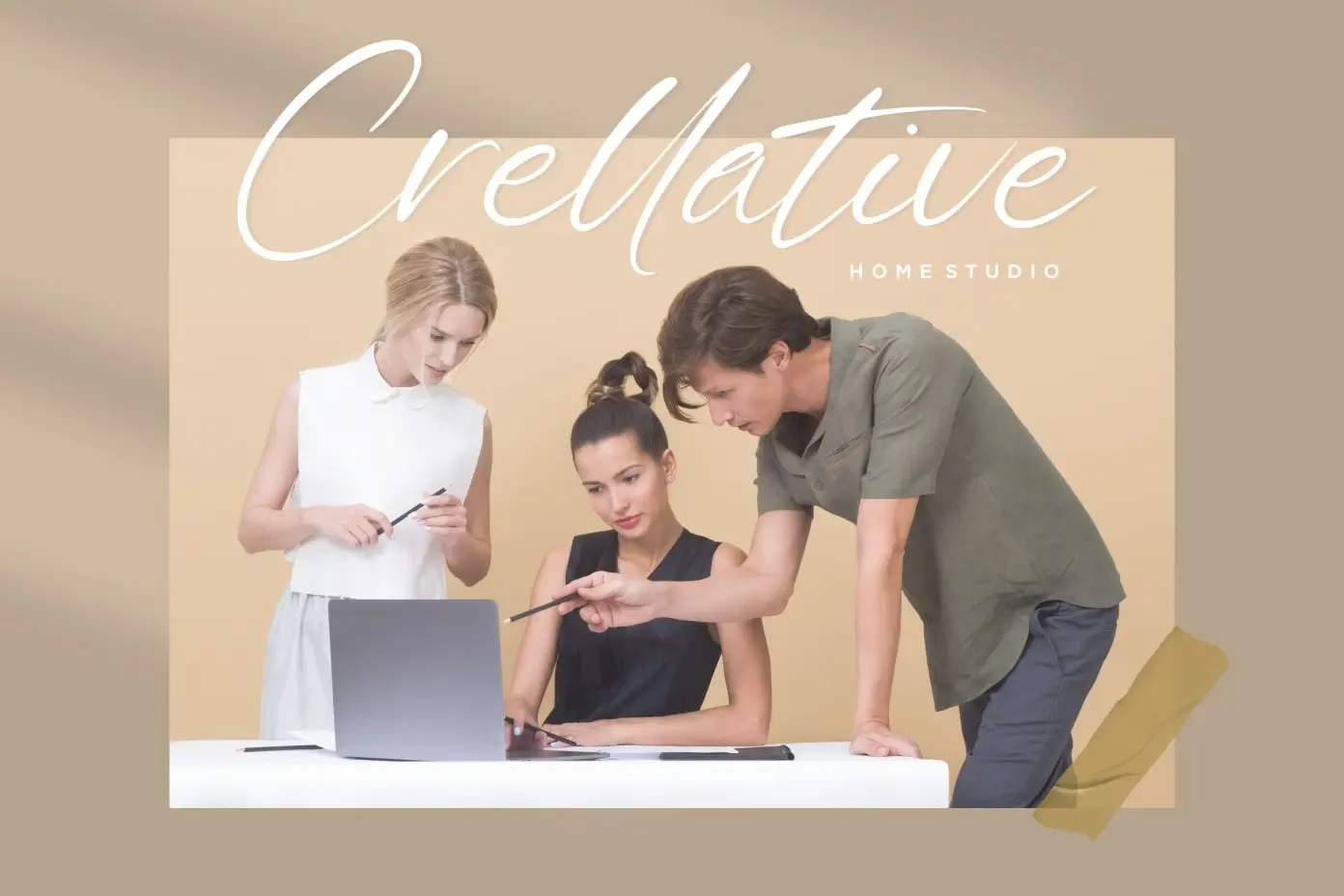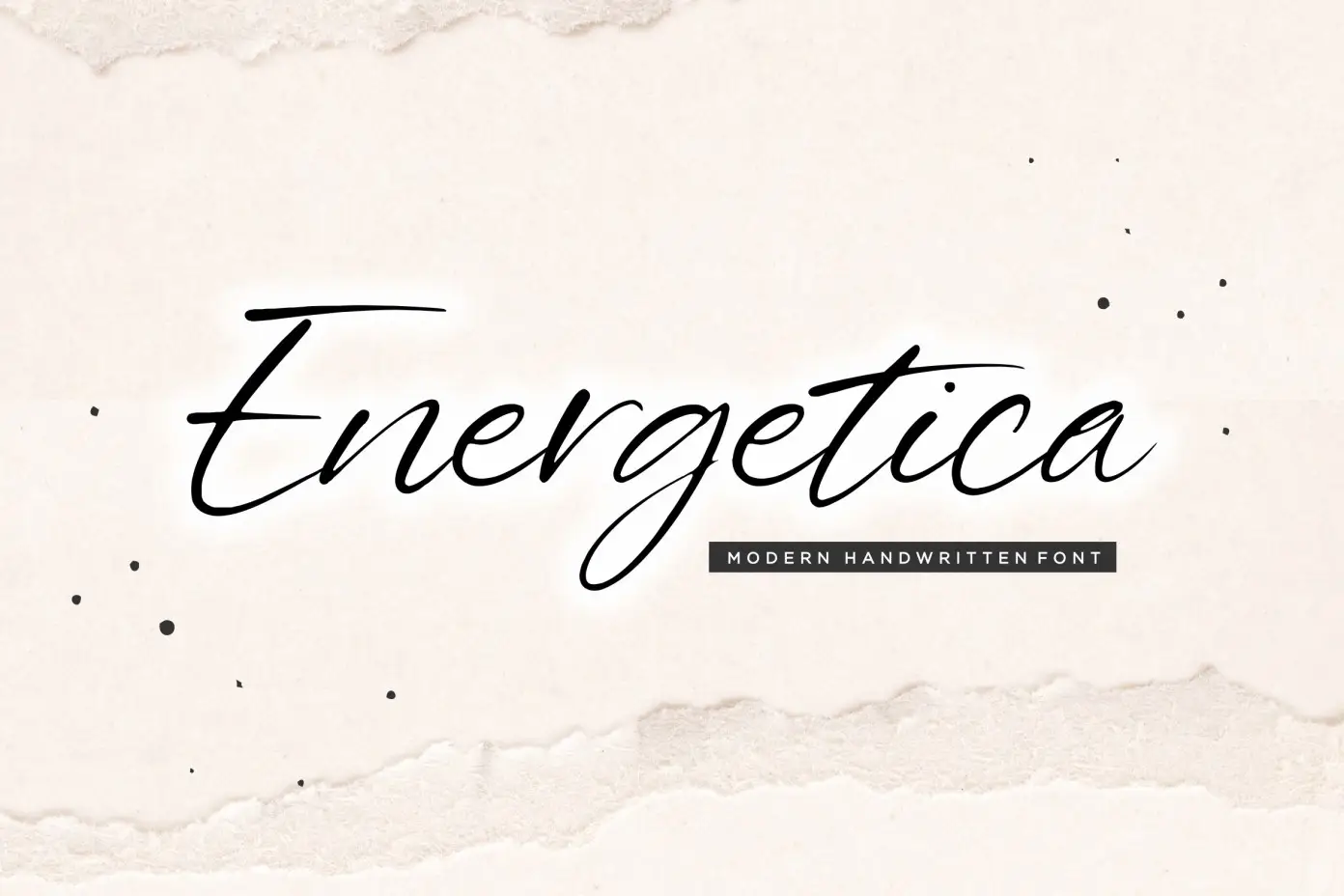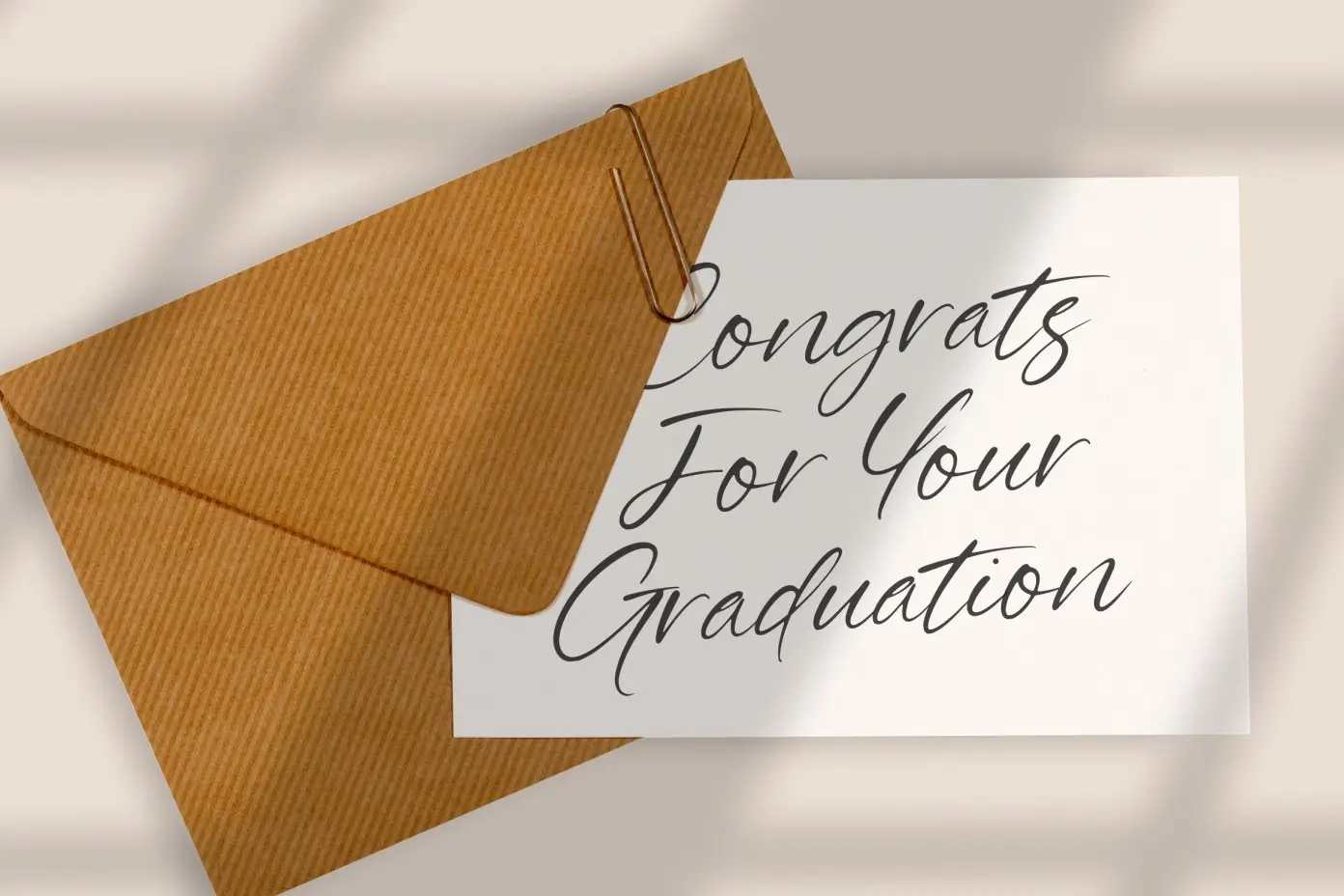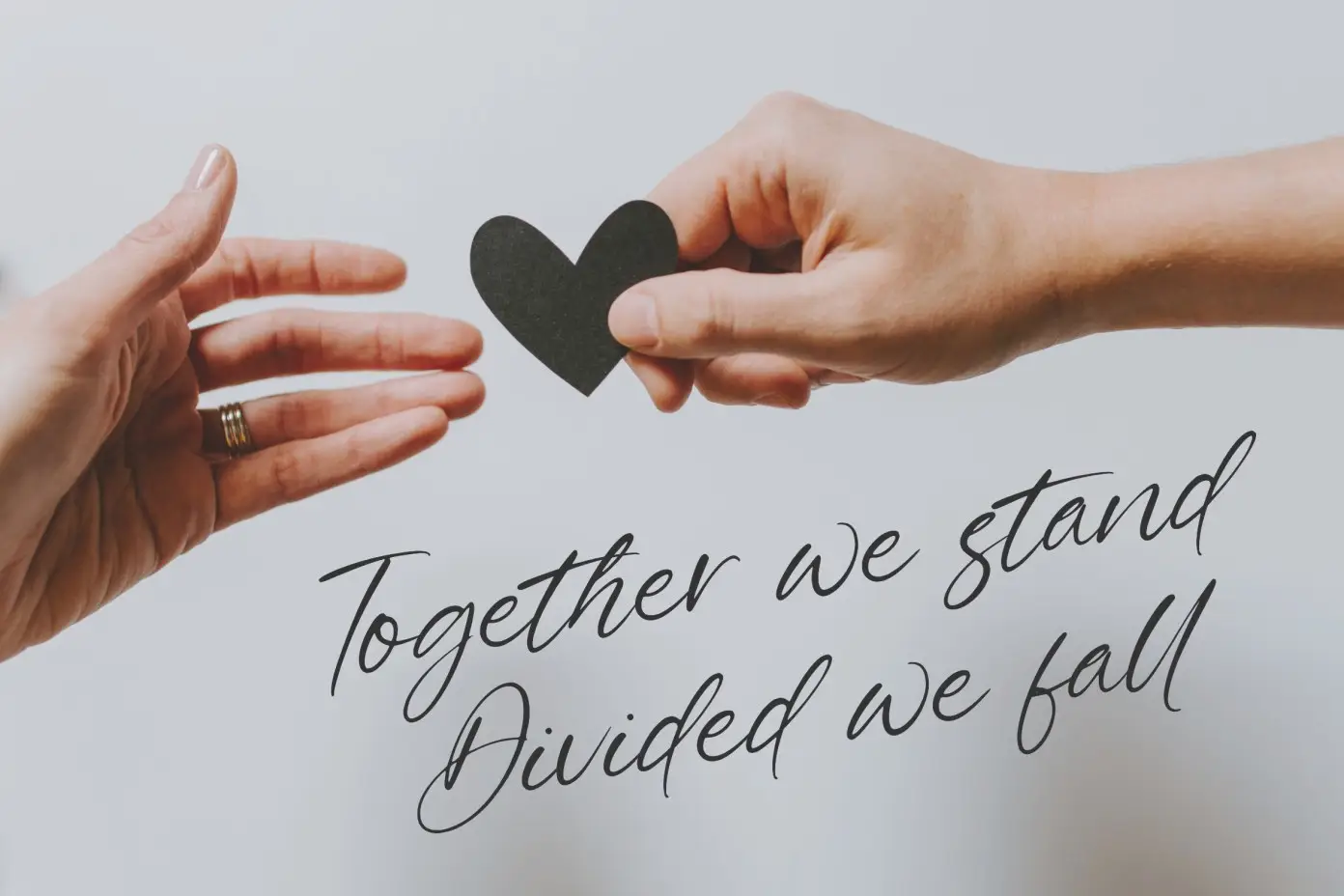
Energetica Handwritten Font
The Energetica Handwritten Font brings a lively and personal touch to your design projects. With its unique, flowing style, this font is perfect for adding a handwritten feel to your branding, logos, and marketing materials.
• Stylish handwritten design
• Includes uppercase and lowercase letters, numbers, and punctuation
• Ideal for branding and logo design
• Great for invitations, greeting cards, and social media graphics
• Use in web design for a personal touch